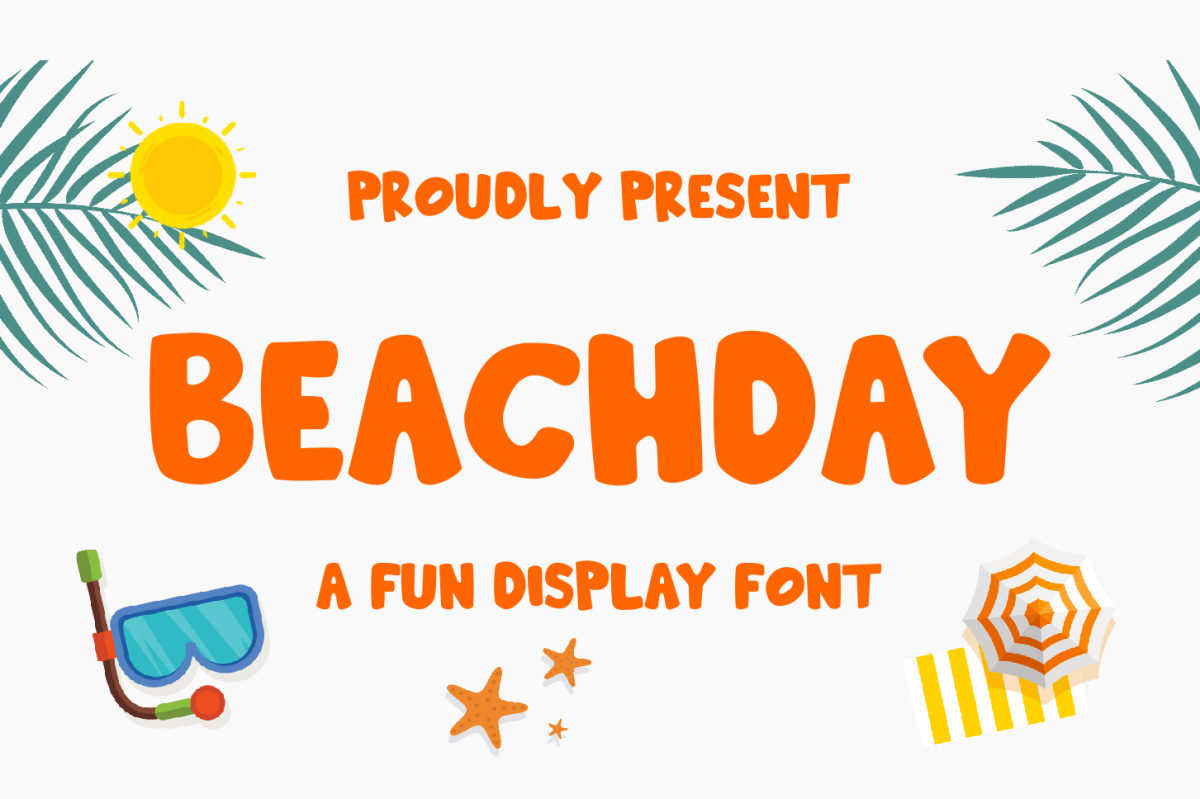
Beachday - Fun Display Font
beachday
Inspired by vacations, Beachday is super fun and playful display font with a whimsical feel!
-Uppercase
-Fun Font
-Eye catching